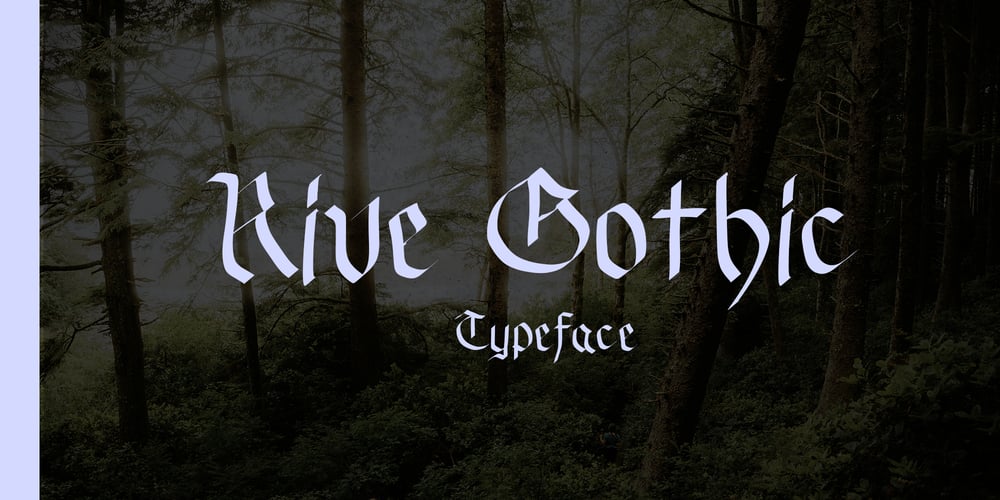
Rive Gothic
Rive Gothic font
Rive Gothic Font Family was designed by Edward Marshall and published by The Design Speak. Rive Gothic contains 1 styles and family package options. Rive Gothic is a sophisticated thin weight gothic font that exudes a sleek and modern aesthetic. Its clean lines and minimalistic design make it an excellent choice for projects requiring a contemporary and elegant look. The thin strokes of Rive Gothic lend a sense of delicacy and refinement, while its geometric structure maintains a strong and timeless presence. Ideal for both print and digital media, this font balances readability with a stylish flair, making it perfect for headlines, branding, and high-end editorial design.